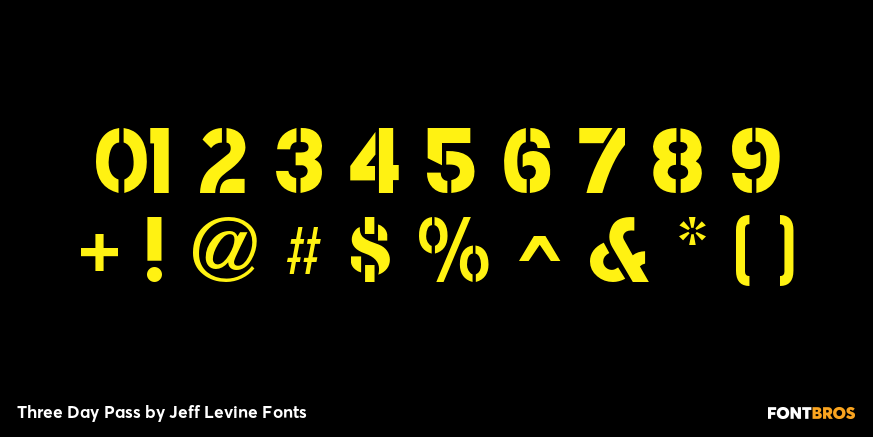
Three Day Pass
Three Day Pass JNL is another addition to the large collection of stencil fonts from Jeff Levine. This design was based on a 1980s clone of a popular lettering guide first sold in the 1950s. To the untrained eye, many of the stencil designs look the same - but there are subtle nuances in the shapes of the letters and numbers that makes each font unique and slightly different.